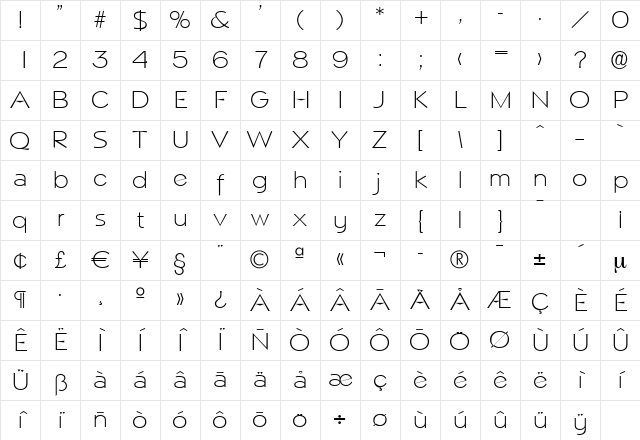
MarioBecker-ExtraLight Regular Free Font
MarioBecker-ExtraLight Regular
Design Context for MarioBecker-ExtraLight
MarioBecker-ExtraLight is a composed and adaptable typeface that performs quietly and consistently across a wide range of design contexts. Its slender proportions lend an understated elegance to any composition.